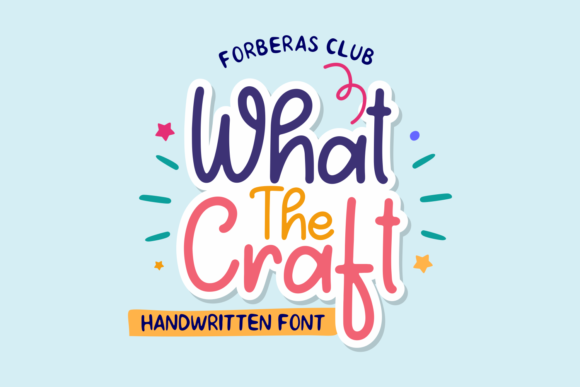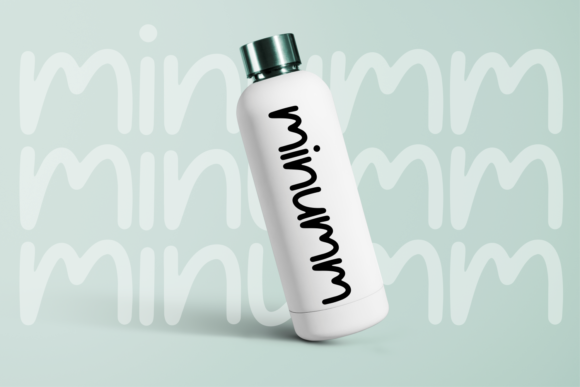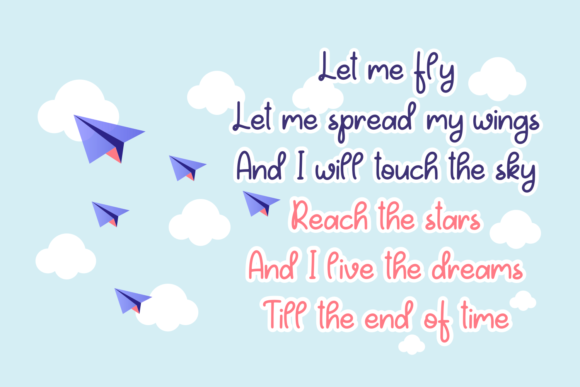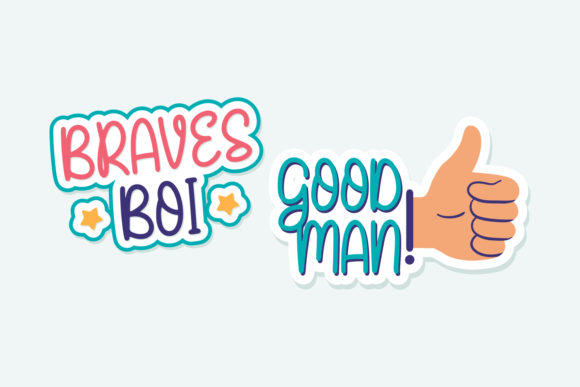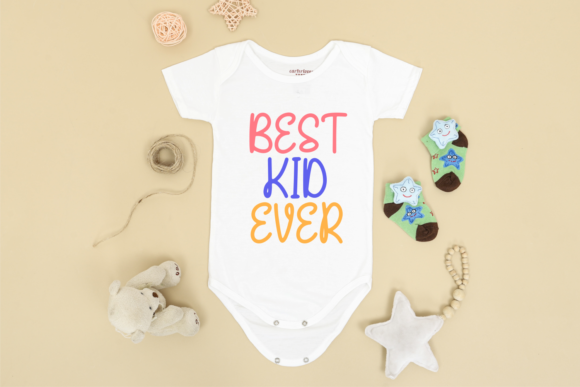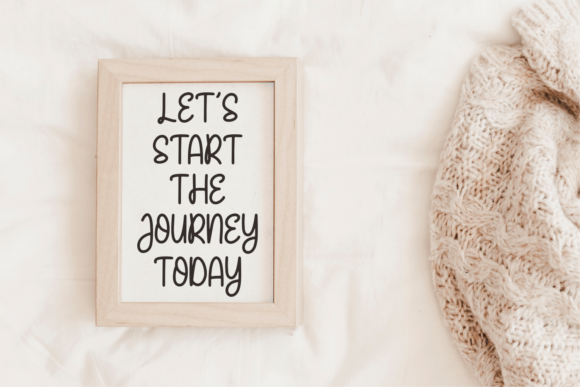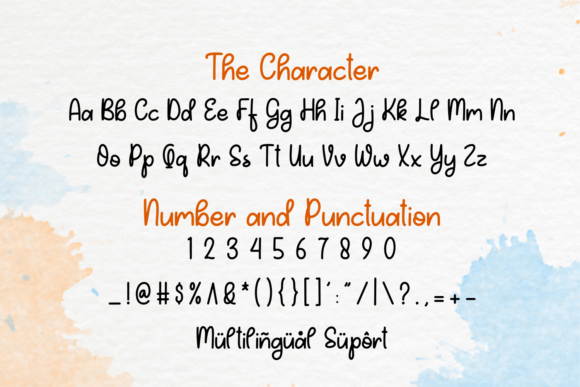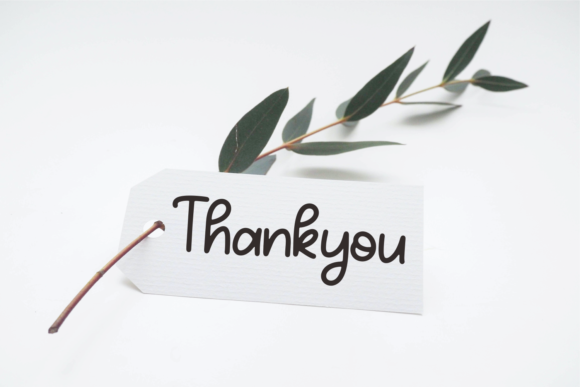
What the Craft Font
About What the Craft Font
What the Craft is a fancy and elegant handcrafted font created to impress your audience and make your branding shine.
Make your projects dance with this elegant and wonderful font wherever you use it. Use it for your headings, logos, ads, printed quotes, packaging, even your website or social media branding.
Every letter has a unique and beautiful touch, which will make your design come alive!
This is a smooth font – perfect for cut machines like Cricut and Silhouette!